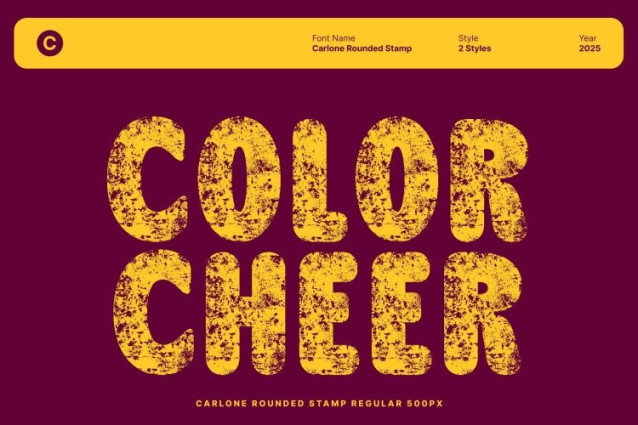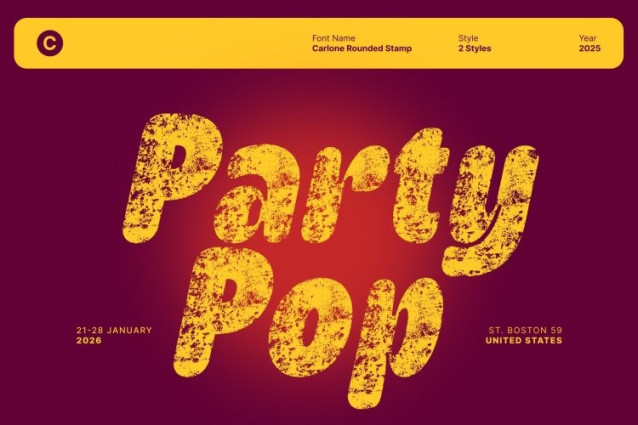
Carlone Rounded Stamp Font
Carlone Rounded Stamp Font This is a bold sans serif display font designed to make every message feel energetic and unforgettable. Its strong, clean shapes create a confident visual rhythm, while the rounded structure introduces a friendly and approachable touch.
Stamp Texture for Expressive Authenticity
What makes this font truly distinctive is its expressive stamp texture. This handcrafted effect adds depth, originality, and a raw artistic finish that sets the font apart from standard bold displays. The slightly distressed, textured look brings warmth and individuality to the clean geometry, giving each letter a handcrafted charm that feels lively and dynamic.
Perfect for Headlines, Posters, and Bold Branding
Whether used for eye-catching headlines, vibrant posters, or expressive branding projects, this font delivers a visual style that is impossible to ignore. Its bold shapes capture attention instantly, while the stamp texture enhances the design with a touch of artistic imperfection.
A Lively and Unconventional Design Tool
This font blends bold structure with hand-textured personality, offering a unique balance of strength and creativity. This makes it an excellent choice for designers who want to break away from rigid, conventional fonts and instead embrace a style that feels lively, unconventional, and full of character.